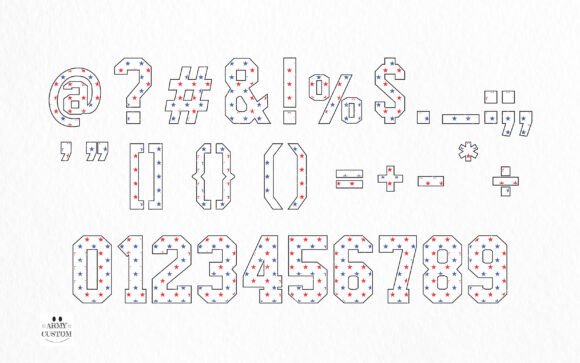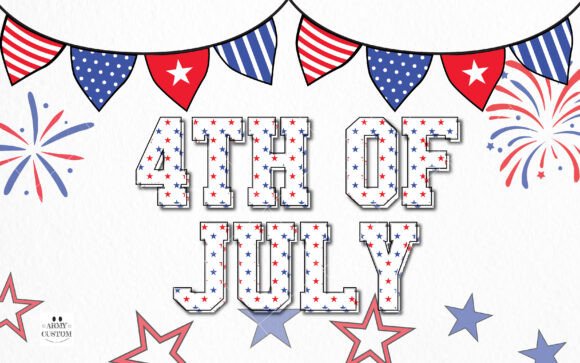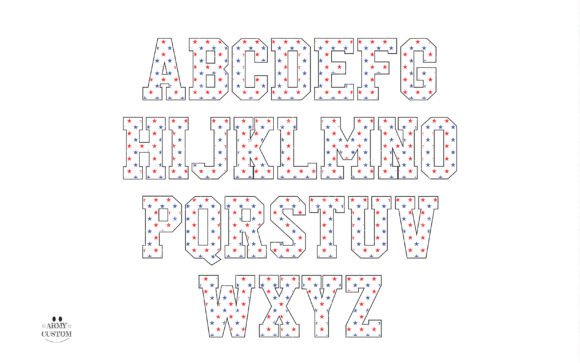
Introducing the 4th of July Font: A Patriotic Celebration in Typography
As the summer season approaches, the spirit of patriotism fills the air, and what better way to express it than through creative projects that showcase American pride? If you’re a designer, crafter, or simply a DIY enthusiast looking to add a touch of Americana to your work, the 4th of July Font, also known as the American Font, is here to help. This uniquely designed font is inspired by the heart of the United States, capturing the essence of Memorial Day Americana in every curve and line.
A Tribute to the Land of the Free
The American Font is more than just a typography style; it’s a tribute to the United States, brought to life through the art of font design. Its curves and lines are carefully crafted to embody the charm and spirit of American aesthetics, making it the perfect addition to any creative project that aims to evoke a sense of patriotism. Whether you’re designing a logo, crafting a sign, or creating digital content, this font is sure to infuse an unmatched sense of American pride into your work.
Unleashing Creativity with the American Font
Whether you’re a professional designer or a DIY enthusiast, the 4th of July Font offers endless possibilities for creative expression. Imagine crafting personalized patriotic signs, creating custom vinyl decals for your favorite American sports team, or designing unique invitations for Independence Day celebrations. The American Font’s distinctive style and patriotic charm make it the perfect tool for adding a personal touch to your projects.
Tips for Using the 4th of July Font
- Pair it with complementary fonts: For a striking effect, pair the American Font with complementary fonts that enhance its patriotic appeal. Serif fonts or classic typefaces can create a balanced and harmonious design.
- Experiment with colors: While the font itself comes in black and color versions, don’t be afraid to experiment with different colors that match your project’s theme. Reds, whites, and blues will amplify the patriotic feel, but you can also explore other color palettes for a unique look.
- Play with textures and patterns: Adding textures or patterns can give your design an extra layer of depth. Consider incorporating subtle textures that mimic American flags, stars, or other patriotic motifs to enhance the theme.
The 4th of July Font, or American Font, is a powerful tool for anyone looking to infuse their creative projects with a sense of patriotism and American pride. Its unique design, inspired by the essence of Memorial Day Americana, makes it a standout choice for designers and crafters alike. With its compatibility with various design programs and cutting machines, you can easily bring your patriotic visions to life. So, dive into the spirit of the season and let the American Font guide your creativity towards making unforgettable patriotic celebrations.